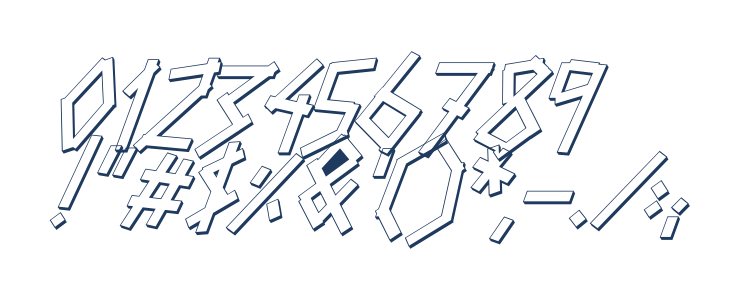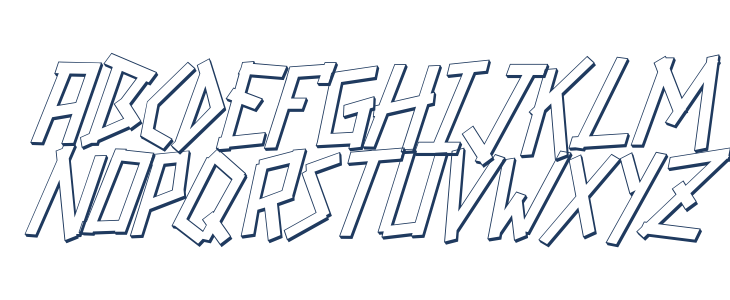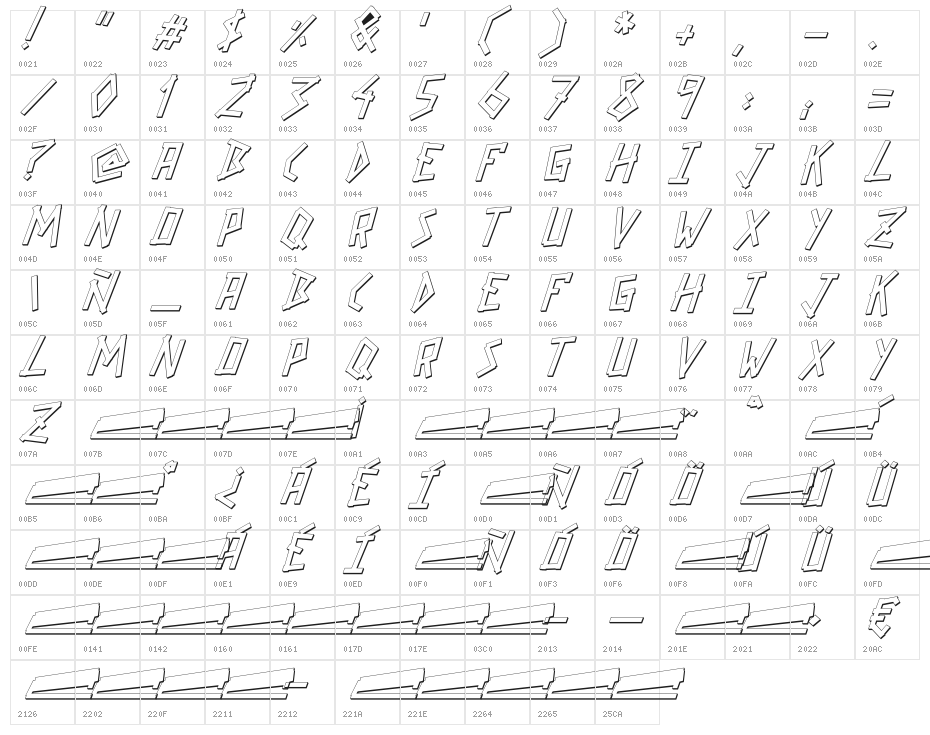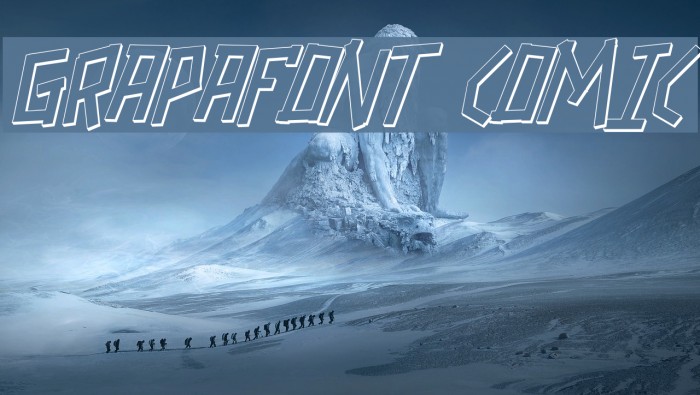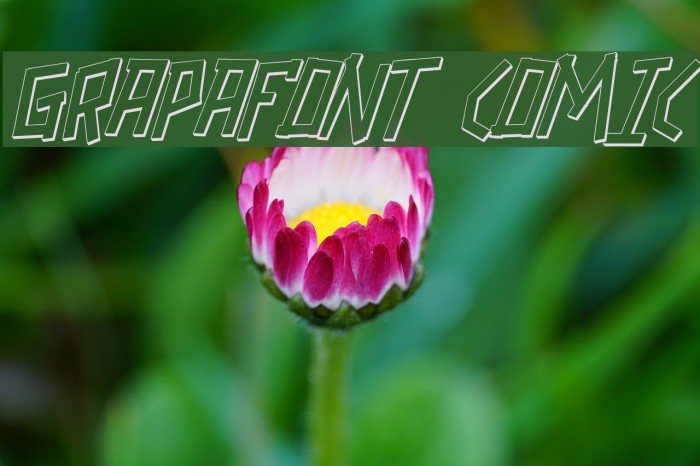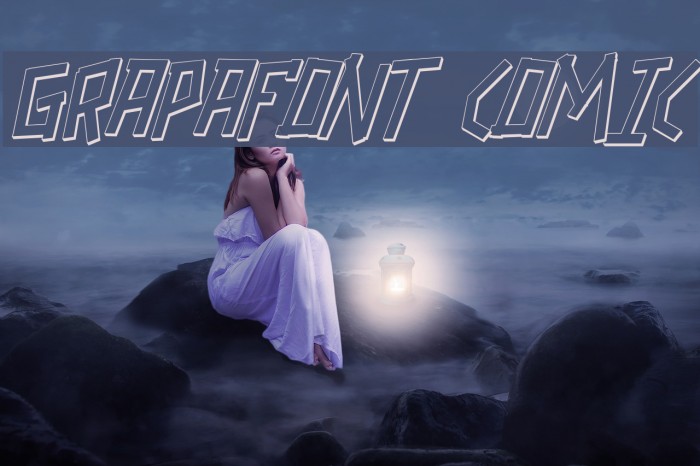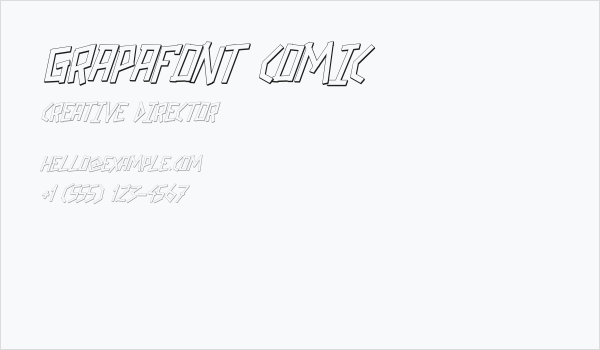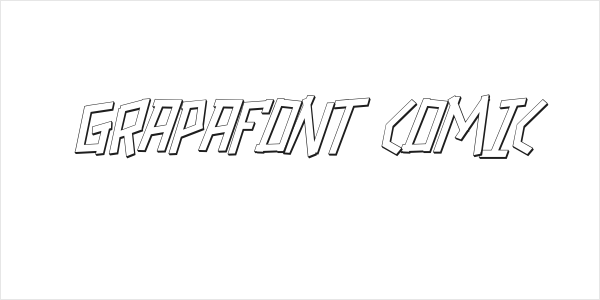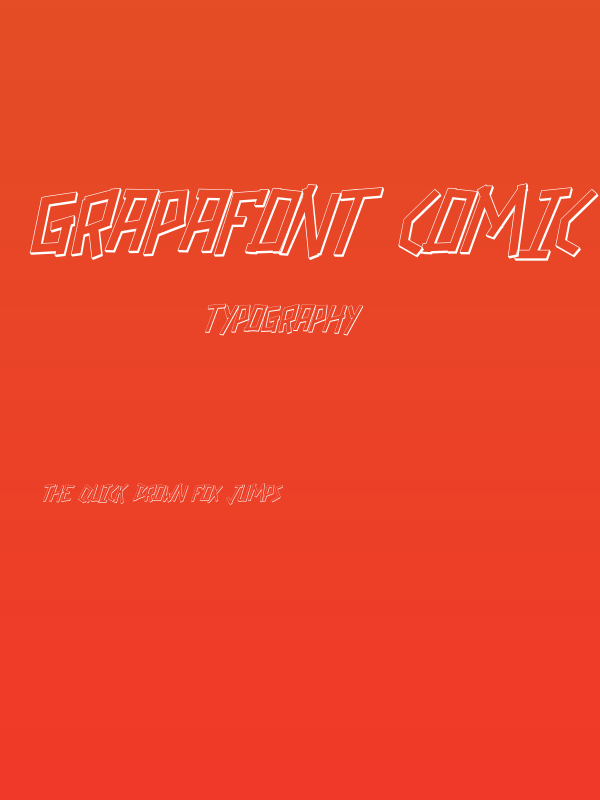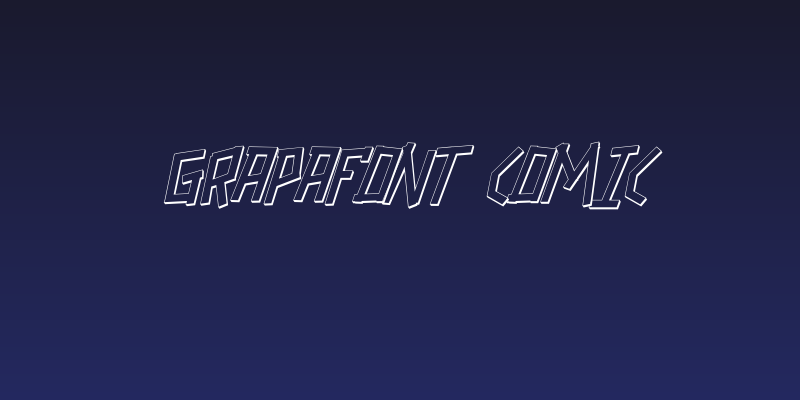
GRAPAFONT comic Font
GRAPAFONT comic Description
This font features a bold, comic-style design with a playful and dynamic appearance. The letters are outlined with a thick black border, giving them a three-dimensional effect. Each character has a slightly slanted, italicized form, adding to the energetic and informal feel. The strokes are consistent in width, contributing to a uniform look across the alphabet. The numbers and special characters maintain the same lively style, making this font suitable for creative and fun projects.
| Overall Style | Playful, Comic |
| Proposed Projects | Ideal for comic books, children's books, playful posters, and creative branding. |